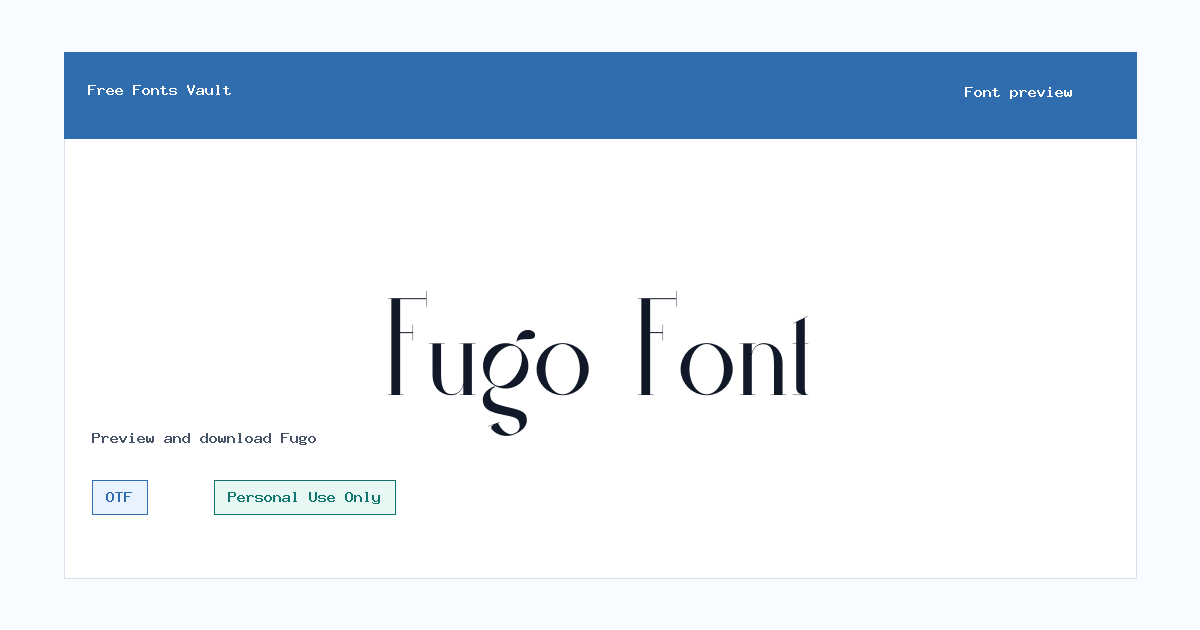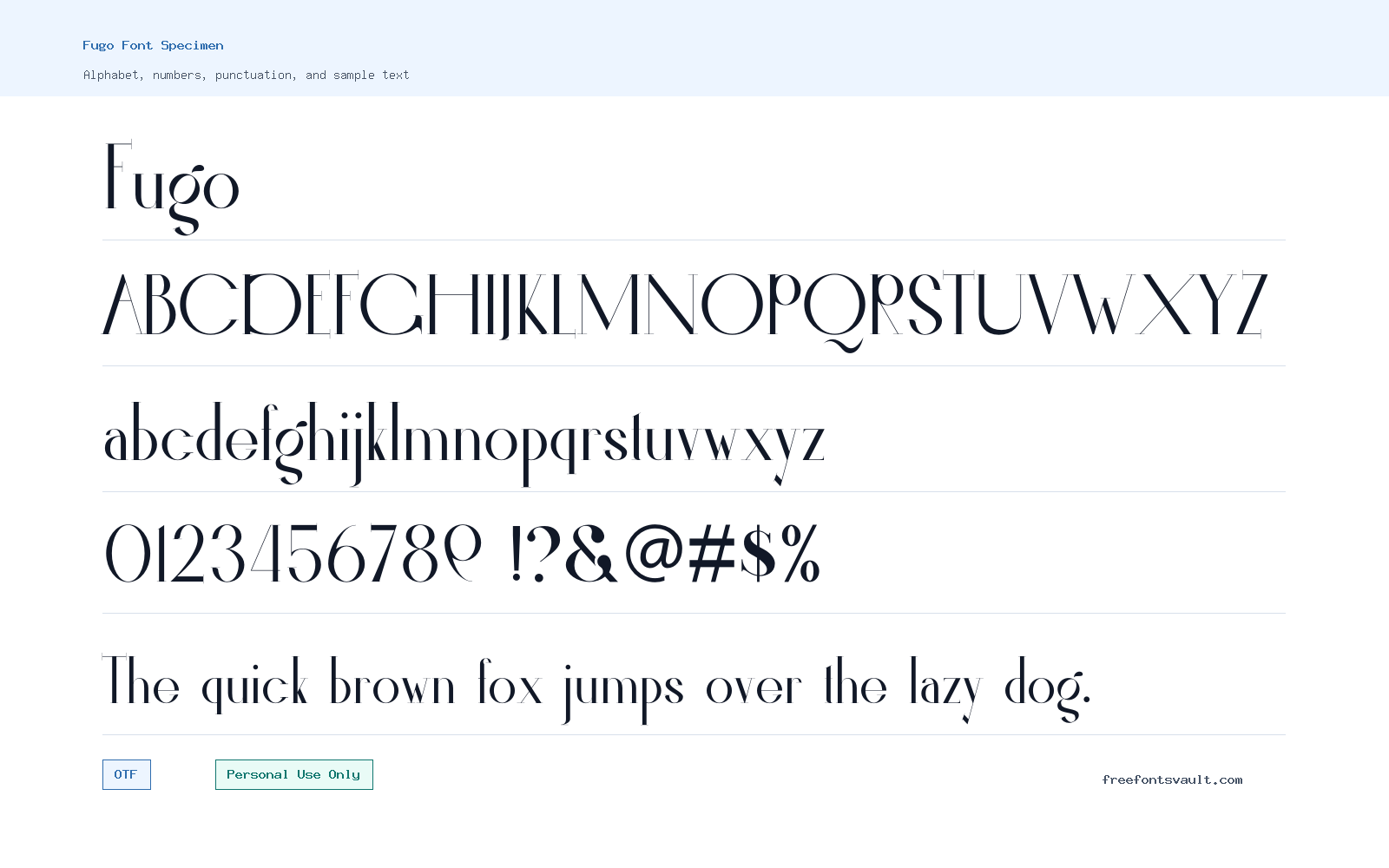
Fugo
Fugo Font
• Designer Lekker
Fugo font.
Fugo is a serif font family with a regular OTF style, suited to designers who want a clean display serif for personal projects, mockups, and visual experiments.
About Fugo Font
Fugo works best when you give it space. As a serif design, it is a practical choice for headings, title treatments, poster text, editorial-style layouts, and brand concept work where the letter shapes need to feel more distinctive than a plain system font. Use the preview tool to test the exact words you plan to use, because display-focused serif fonts can change character quickly between short names, long headlines, and mixed-case text. Try it with uppercase titles, title case, numbers, and a few punctuation-heavy lines before deciding whether it fits your design.
• Serif font family with a regular 400 style
• Good candidate for short display text, titles, and logo concepts
• Logo concepts and personal branding drafts
• Poster headlines and event graphics
• Editorial-style titles and magazine mockups
• Personal web design previews
• Social media graphics and quote cards
• Invitation, card, and stationery experiments
• Typography studies and font pairing tests
Is Fugo good for body text?
Use the preview to test it before setting long paragraphs. With only a regular style listed, it is safer for headings, titles, and short display text than complex text systems.
What should I pair Fugo with?
Try pairing it with a neutral sans serif for captions, menus, and body text. Keep the supporting font simple so Fugo can carry the main title or logo-style text.